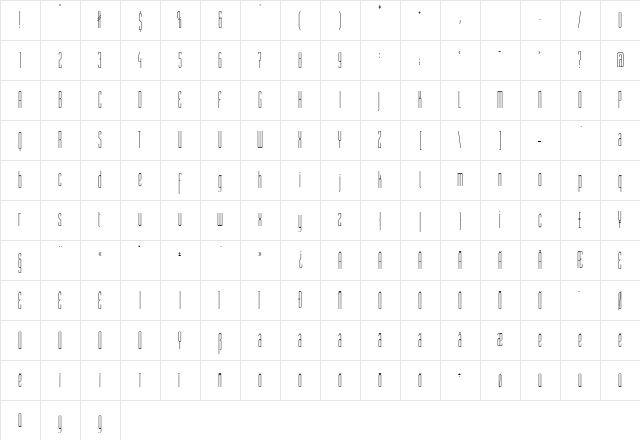
ST Moviehead Ultra-condensed Medium
| Foundry | Sascha Timplan |
| Designer | Sascha Timplan |
Design Context for ST Moviehead Typeface
ST Moviehead is a composed and adaptable typeface that performs quietly and consistently across a wide range of design contexts. Its narrow stance lets it pack a punch even in space-constrained designs.